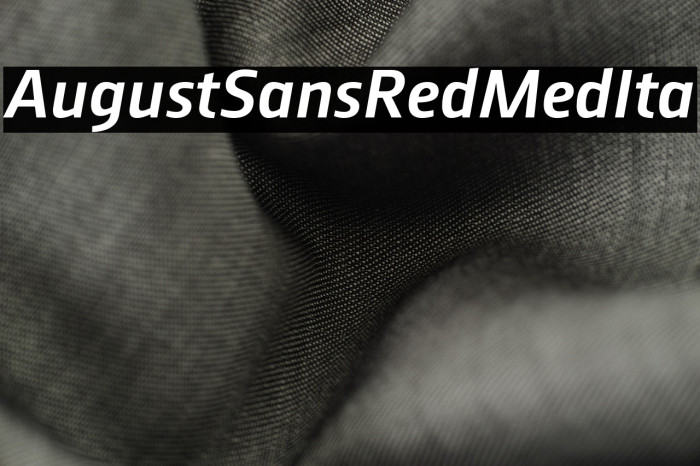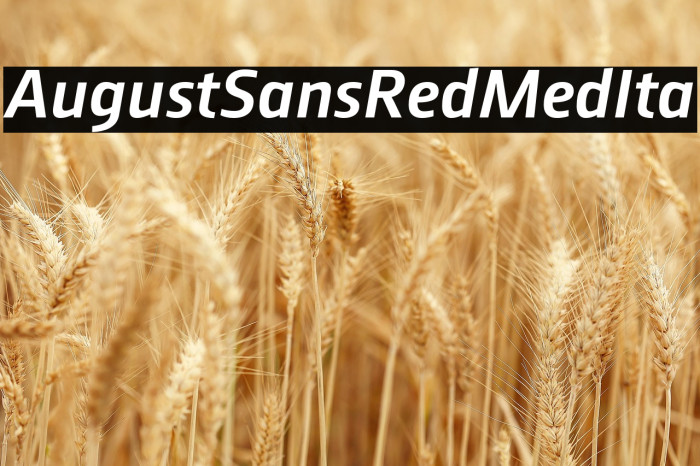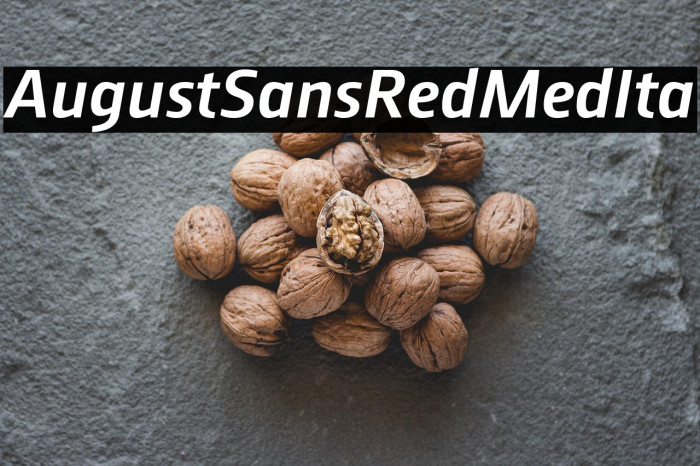
AugustSansRed-66MedIta Font
AugustSansRed-66MedIta Description
This font features a clean and modern sans-serif design with a slight italic slant, giving it a dynamic and forward-moving appearance. The characters are well-proportioned with consistent stroke widths, creating a harmonious and balanced look. The uppercase letters are bold and assertive, while the lowercase letters maintain a friendly and approachable feel. The numerals are clear and easy to read, making them suitable for various applications. The special characters are well-integrated, maintaining the overall aesthetic of the font. This typeface is versatile and can be used in a variety of design projects.